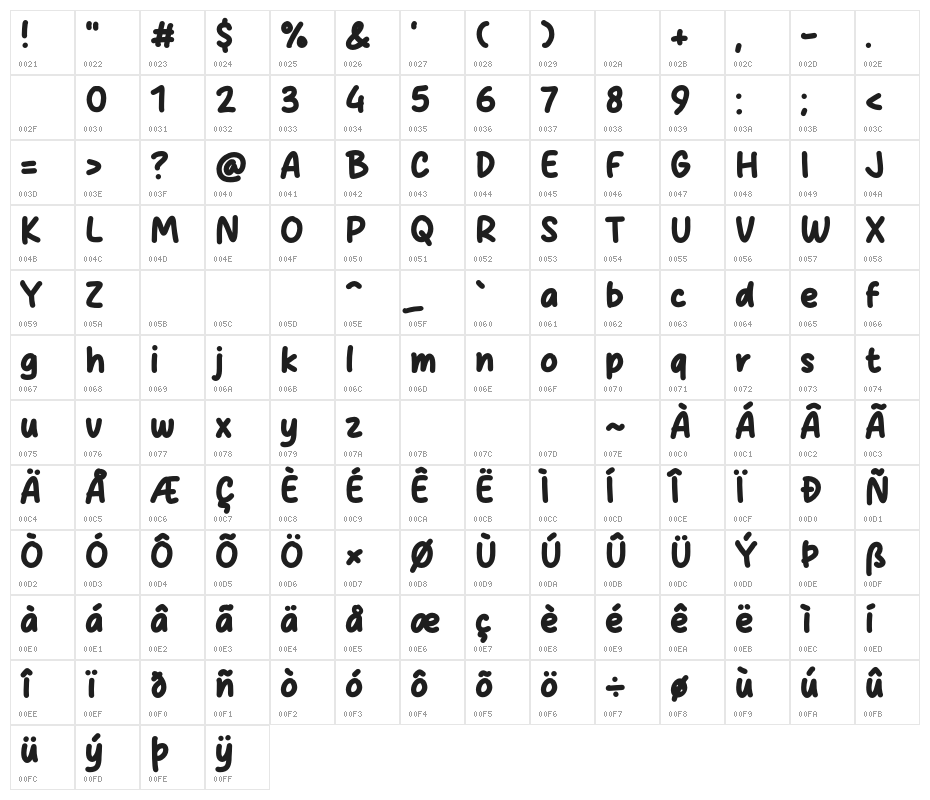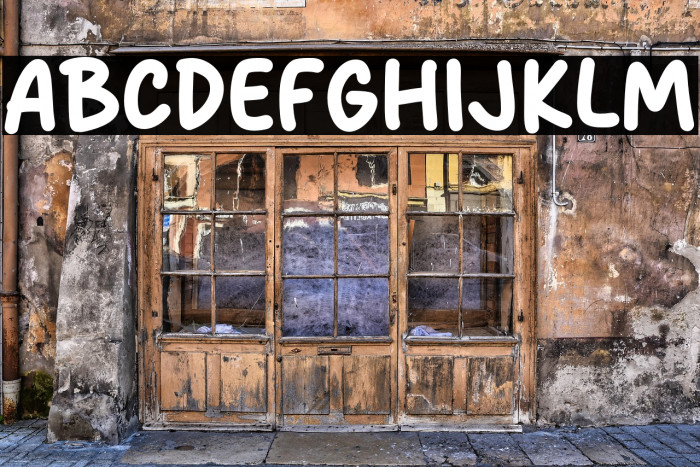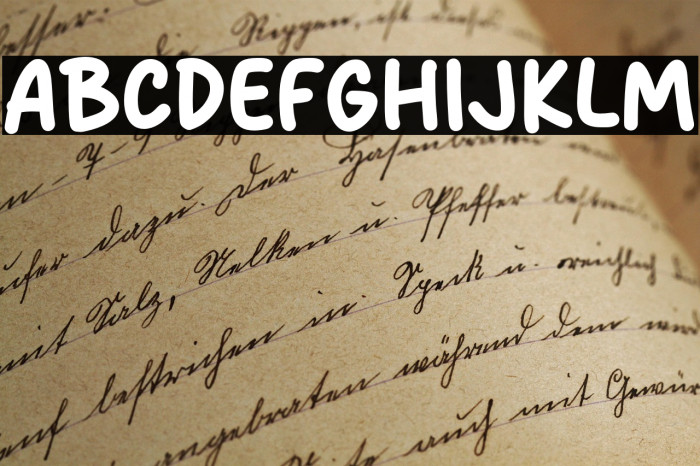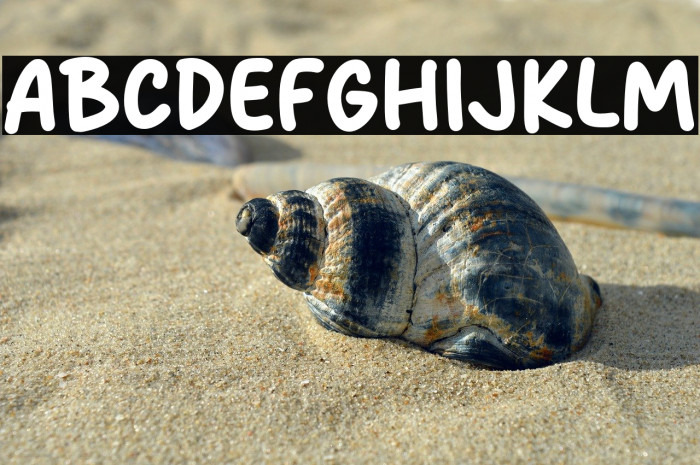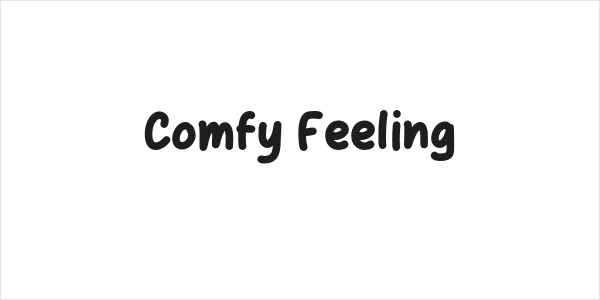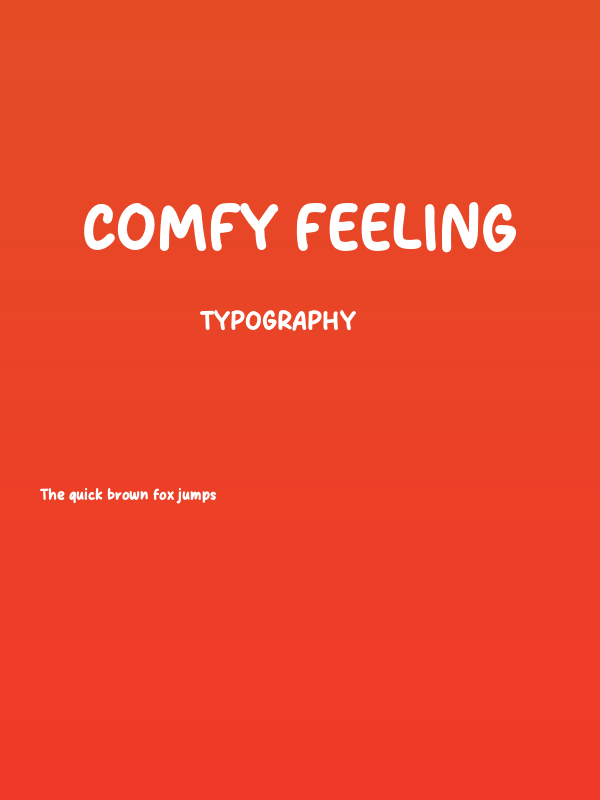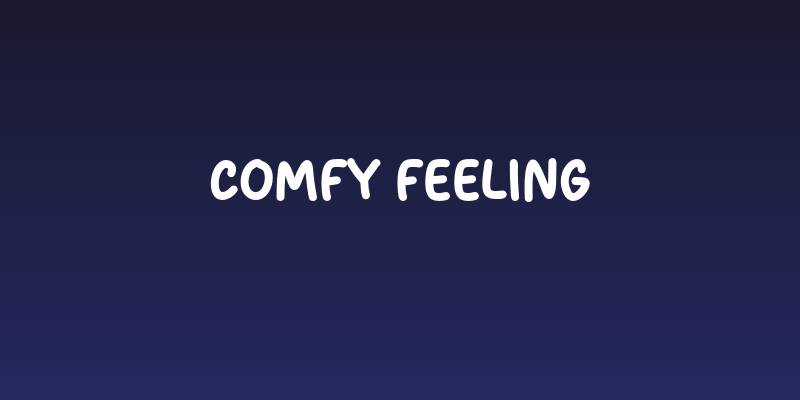
Comfy Feeling Font
Comfy Feeling Description
This playful and rounded font exudes a sense of warmth and friendliness. The characters are bold and slightly irregular, giving them a hand-drawn appearance that adds a personal touch. The strokes are thick and consistent, contributing to a cohesive look across all characters. The font maintains a casual and approachable vibe, making it ideal for projects that require a touch of whimsy and creativity. Its readability is high, even at smaller sizes, due to the clear distinction between each character. The overall design is both inviting and versatile, suitable for a variety of applications.
| Use Case | Headlines, Logos, Social media graphics |
| Proposed Projects | Ideal for children's books, playful branding, casual invitations, and social media graphics. |